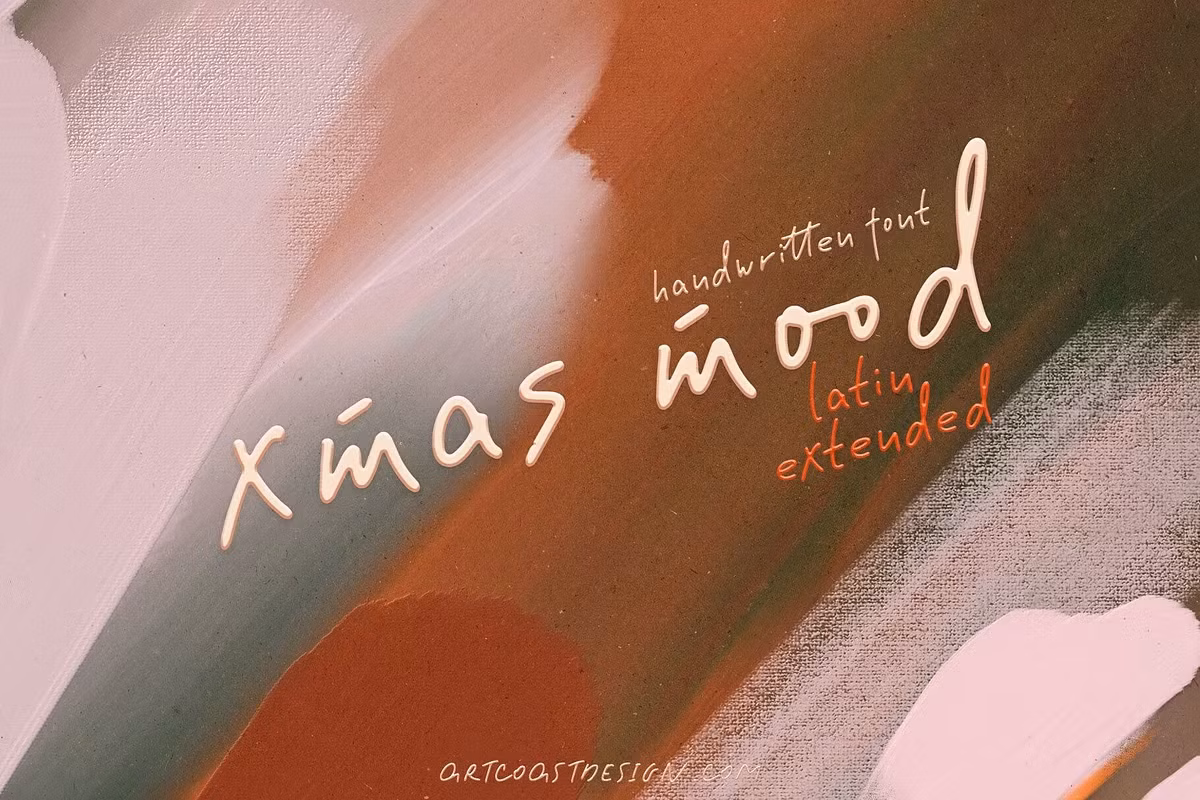
Xmas Mood Handwritten Font Free Download is a festive and playful typeface designed to capture the joy and warmth of the holiday season. With its charming handwritten style, whimsical curves, and cheerful character, Xmas Mood is perfect for Christmas cards, holiday invitations, gift tags, social media posts, and seasonal branding.
This font brings a personal and cozy touch to your typography, making it ideal for designs that need to feel warm and inviting. Whether you're crafting a holiday greeting, a fun event poster, or a festive logo, Xmas Mood adds a creative, joyful flair to your designs.